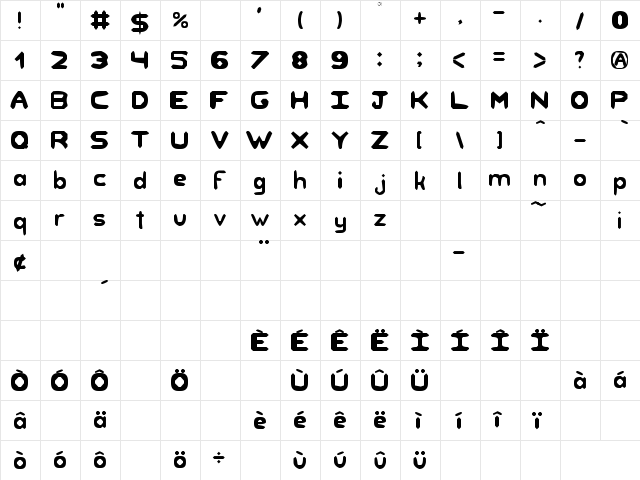
Unknown Regularity Regular
Design Context for Unknown Regularity Typeface
Unknown Regularity offers clean, dependable letterforms without strong stylistic allegiance, making it a practical choice for designers who need flexibility.